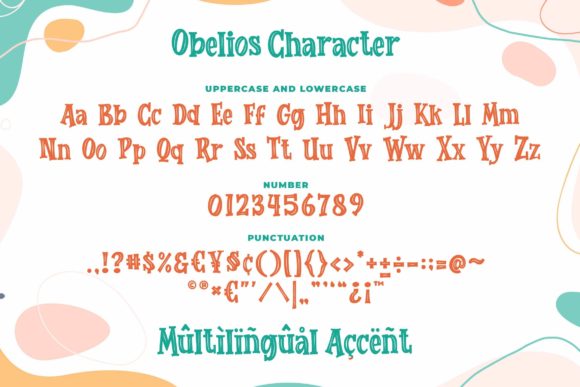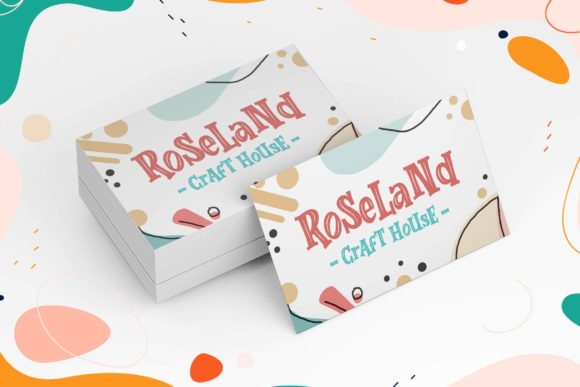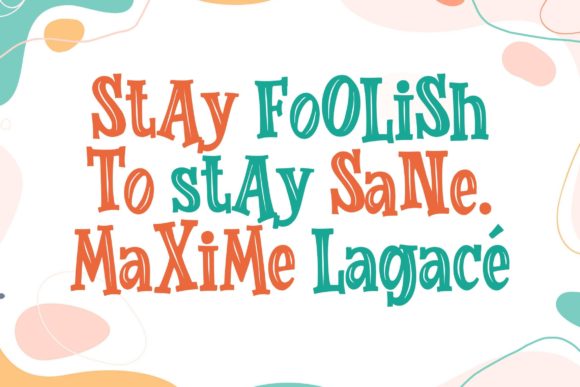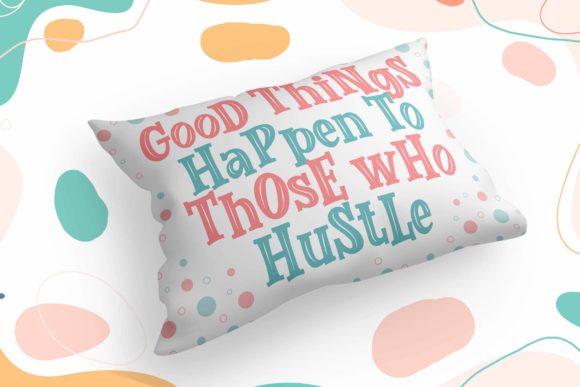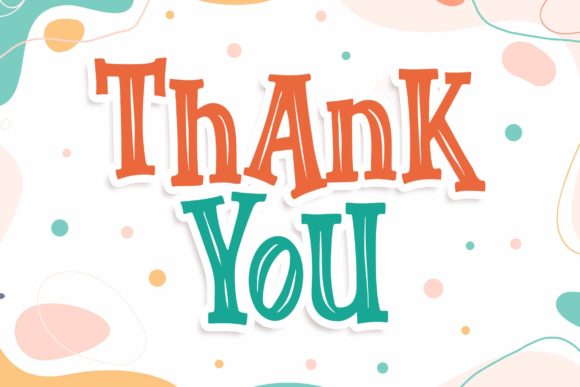
Introduction to Obelios Font
Obelios is a chic and bouncy display font.
Add it to each of your party invitation, gathering or pretty much any design that requires a touch of youth and joy .
Key Features of Obelios Font